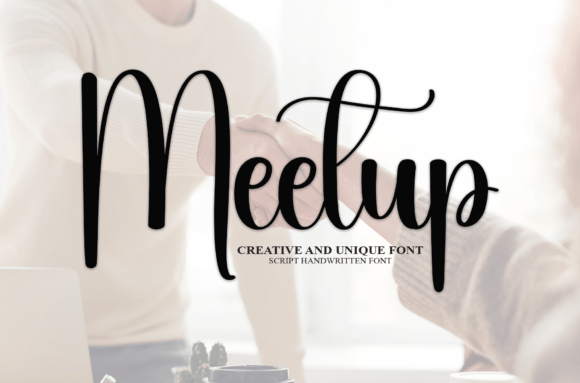
Looking for a font that's both sweet and friendly? Meet Meetup font - the perfect handwritten font for all your design needs! Created by William Jhordy, Meetup is a fresh and neat font that's sure to elevate your designs to the next level.
Whether you're writing wedding invitations, designing greeting cards, or working on any other project that needs a fun touch, Meetup font is the perfect choice. Its unique script style is both eye-catching and easy to read, making it ideal for web design and other digital projects.
As one of the best fonts for web design in 2017, Meetup font is perfect for creating captivating headlines, engaging social media posts, and memorable branding materials. With its emotional and creative design, Meetup font is sure to leave a lasting impression on your audience.